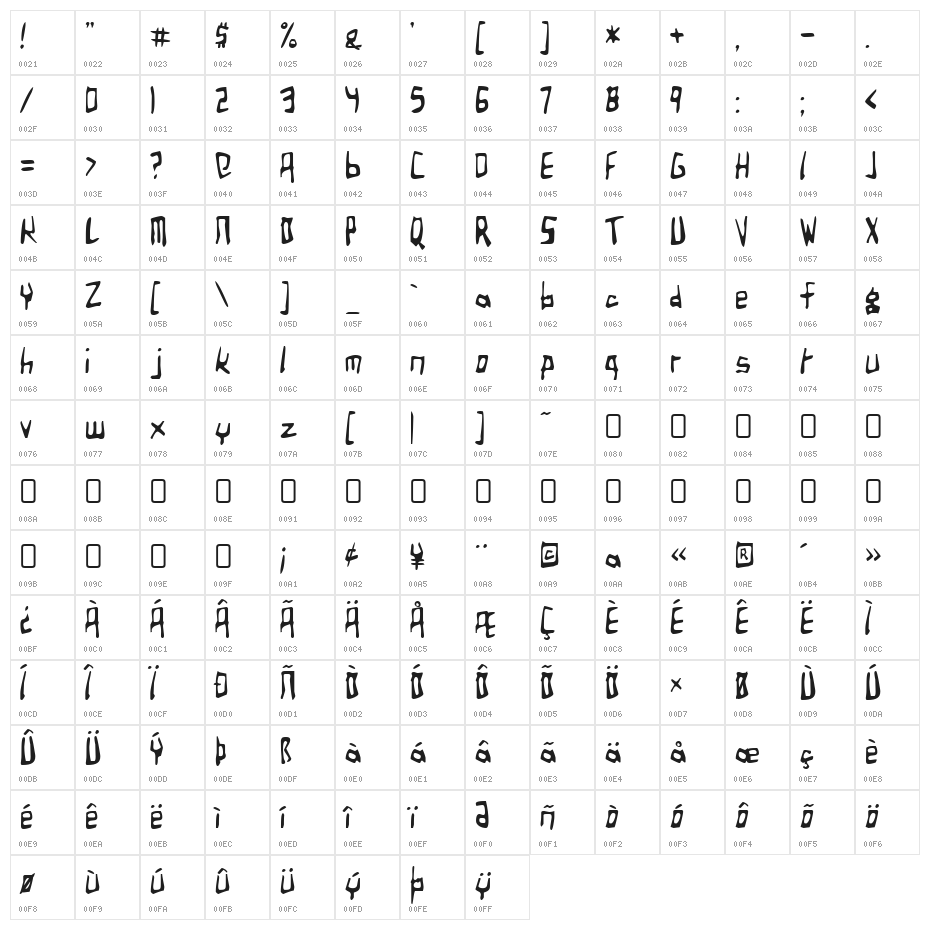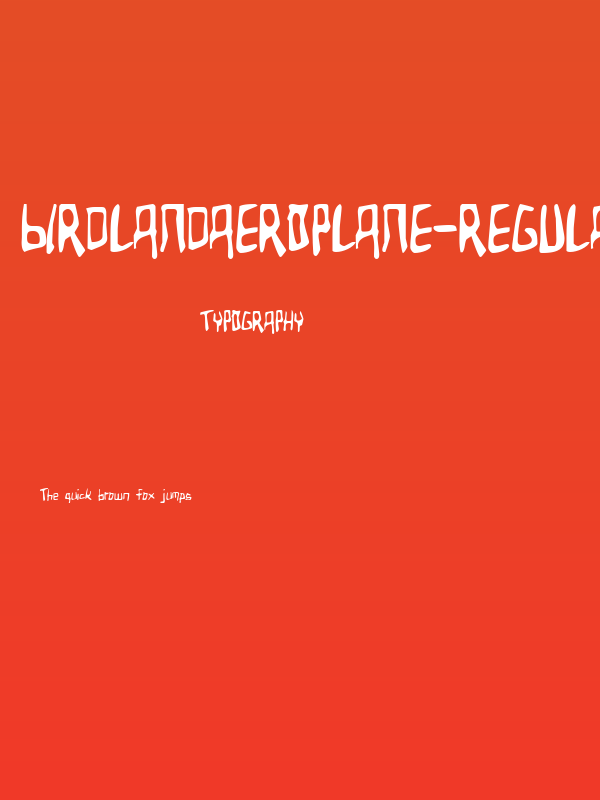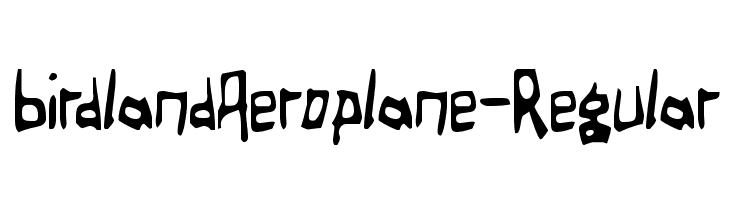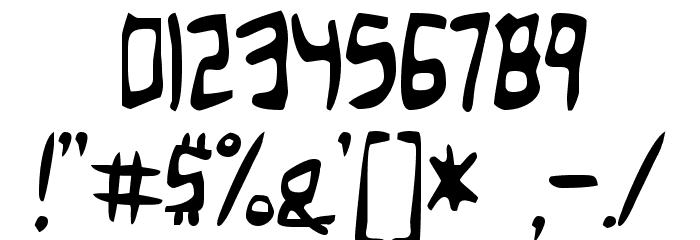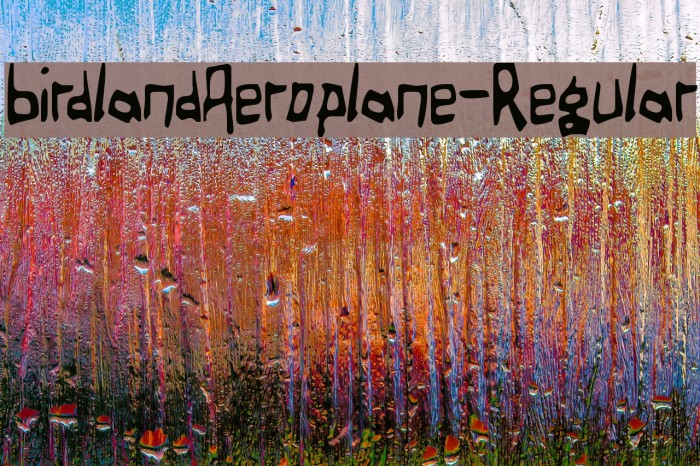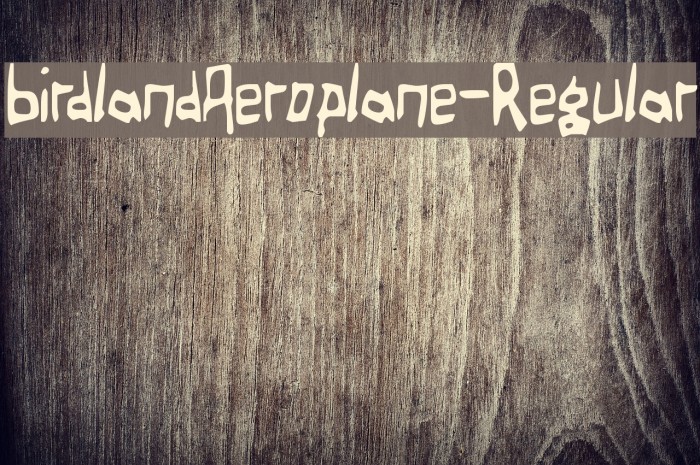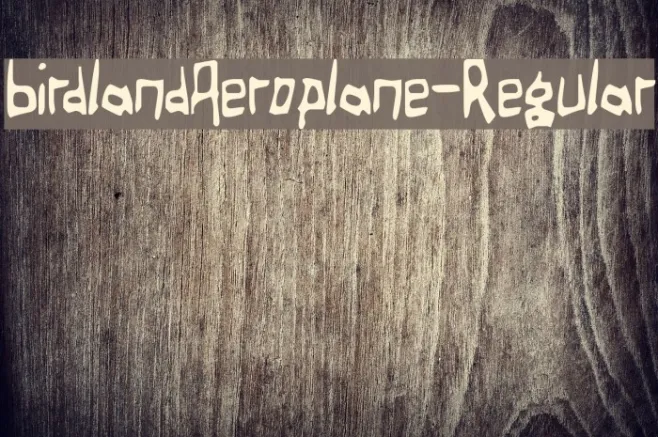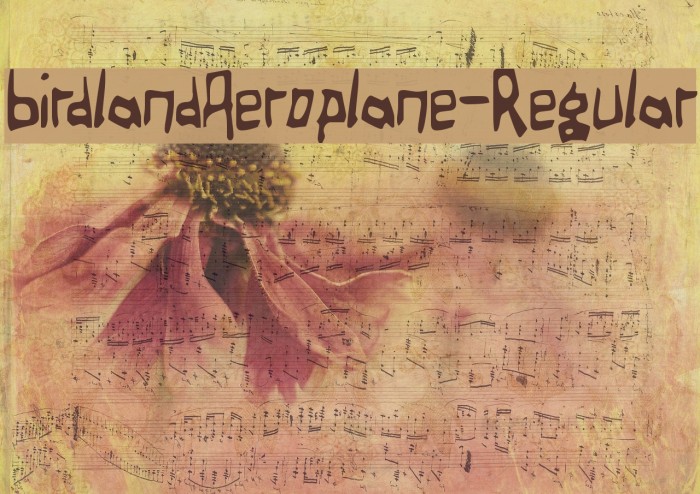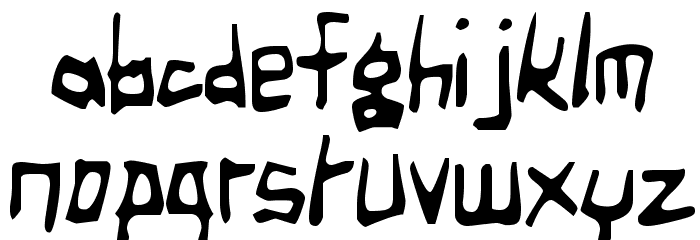
BirdlandAeroplane-Regular Font
BirdlandAeroplane-Regular Description
This font features a bold and dynamic style with a playful and irregular form. The characters have a hand-drawn appearance, giving them a unique and artistic flair. The strokes are thick and uneven, creating a sense of movement and energy. The uppercase and lowercase letters maintain a consistent style, while the numbers and special characters blend seamlessly with the overall design. This font's distinctive look makes it stand out, offering a creative and unconventional aesthetic.
| Overall Style | Artistic and Playful |
| Proposed Projects | Ideal for creative projects such as posters, album covers, children's books, and artistic branding. |